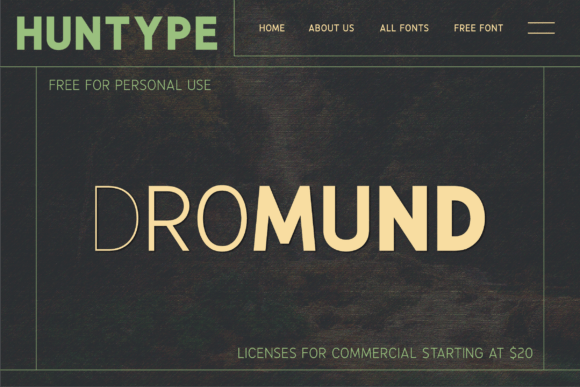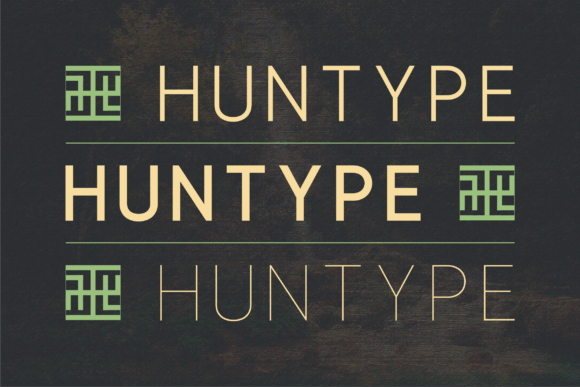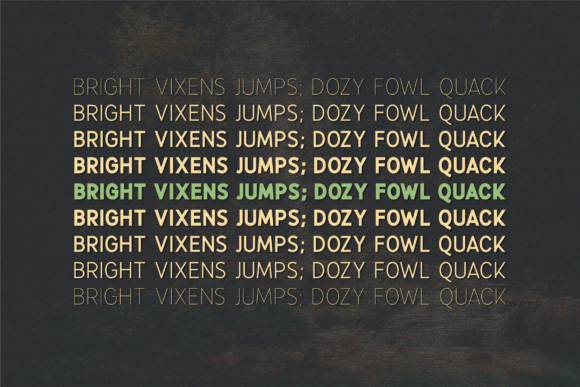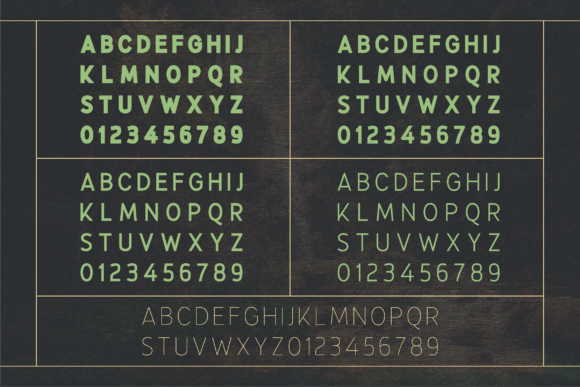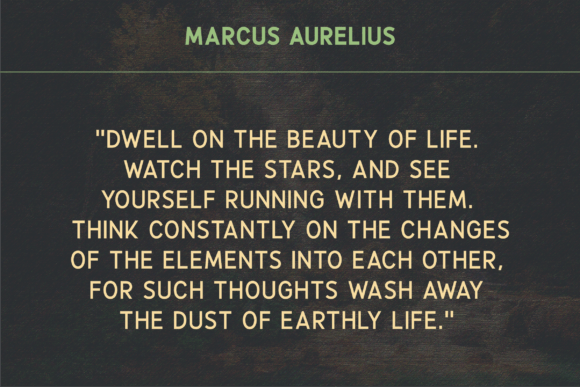
Dromund Font: Elevate Your Design with Modern Sophistication
In the realm of typography, the right font can make all the difference in transforming a design from ordinary to extraordinary. Introducing the Dromund Font, a modern and versatile font family that embodies the perfect blend of clean geometric forms and subtle sophistication. This exceptional font family is designed to cater to the diverse needs of designers and crafters, offering a harmonious balance of sharp lines and gentle curves that can elevate any design project.
The Essence of Dromund Font
The Dromund Font is characterized by its precise letterforms and contemporary aesthetic, making it an ideal choice for a wide range of applications. From branding and logos to headlines and various design projects, this font family excels in delivering a modern and professional feel. Its adaptability is evident in the range of weights available, providing flexibility to explore different styles and applications.
Key Features of Dromund Font
- Clean Geometric Aesthetic: The Dromund Font boasts a clean and geometric design, making it particularly suitable for projects requiring a contemporary and sophisticated look.
- Range of Weights: With a variety of weights to choose from, designers can experiment with different styles and applications, ensuring that the font can adapt to any design need.
- Precise Letterforms: The font’s precise letterforms and sharp lines create a sense of modernity and professionalism, making it perfect for branding, logos, and headlines.
- Subtle Sophistication: The Dromund Font’s subtle sophistication adds a touch of elegance to any design, setting it apart from more traditional font families.
Applications of Dromund Font
The versatility of the Dromund Font makes it an excellent choice for a wide range of design projects. Some of the ideal applications for this font family include:
- Branding: Create a lasting impression with the Dromund Font’s modern and sophisticated aesthetic, perfect for logos, business cards, and brand guidelines.
- Logos: The font’s clean geometric forms and precise letterforms make it an excellent choice for logotypes and wordmarks.
- Headlines: Add a touch of modernity to your headlines with the Dromund Font’s sharp lines and gentle curves, creating a visually appealing contrast.
- Design Projects: From brochures and posters to websites and social media graphics, the Dromund Font is an excellent choice for any design project requiring a contemporary and sophisticated look.
Why Choose Dromund Font?
In a world where typography plays a crucial role in design, the Dromund Font stands out as a exceptional choice for designers and crafters. Its unique blend of clean geometric forms and subtle sophistication makes it an excellent addition to any design project. With its range of weights and adaptability, the Dromund Font is an investment worth considering for any designer looking to elevate their design game.
In conclusion, the Dromund Font is a modern and versatile font family that offers a perfect blend of clean geometric forms and subtle sophistication. Its precise letterforms, contemporary aesthetic, and range of weights make it an excellent choice for a wide range of design projects. Whether you’re a designer or crafter, the Dromund Font is an exceptional addition to your typography arsenal, sure to elevate your designs to new heights.